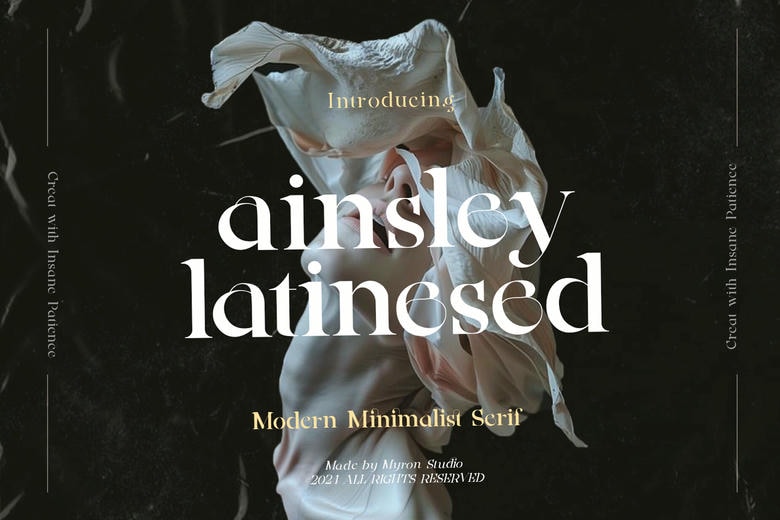
Ainsley Latinesed Font
Ainsley Latinesed is a vintage serif typeface that carries out the virtue of minimalism and class, designed with stylish optional characters and postmodern forms of connections. These fonts come in four elegant styles: regular, italic, bold, and bold italic; making it a great versatile typeface choice.
Ainsley Latinesed typeface supports almost 70 Latin based languages and with its high contrast design it is perfect for designs with large lettering or for logotypes, posters, banners, covers for magazines or cosmetic packaging or basically any kind of editorial or display usage. This typeface is professional and creative at once, putting tradition together with contemporary style.
Ainsley Latinesed Serif Font